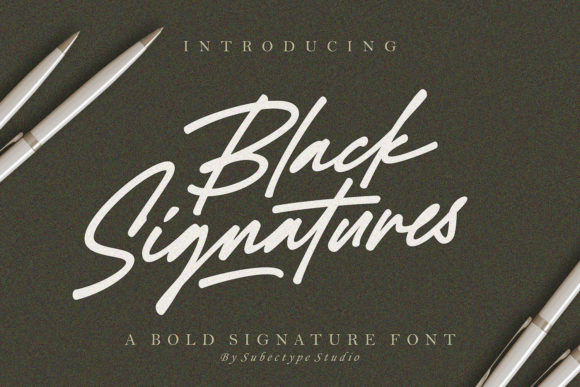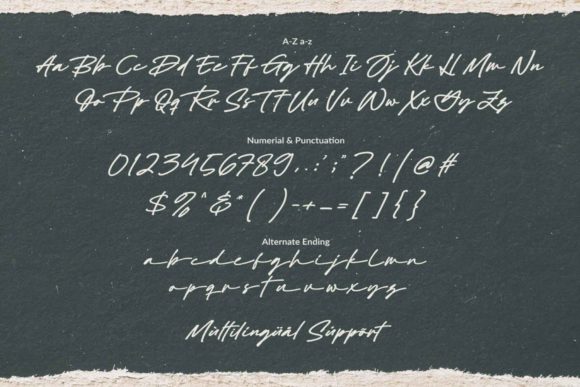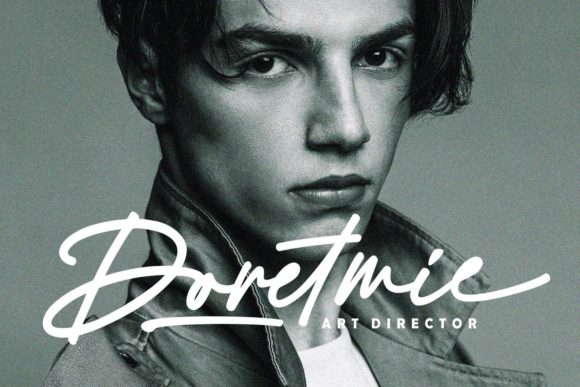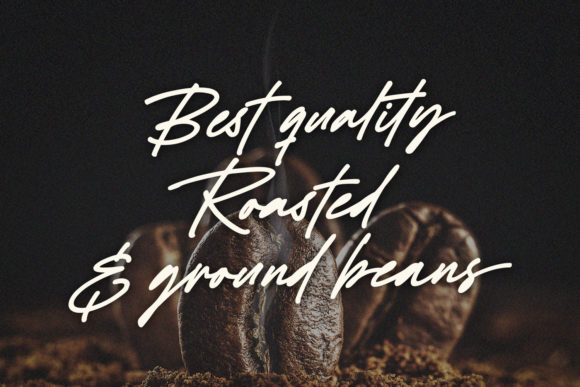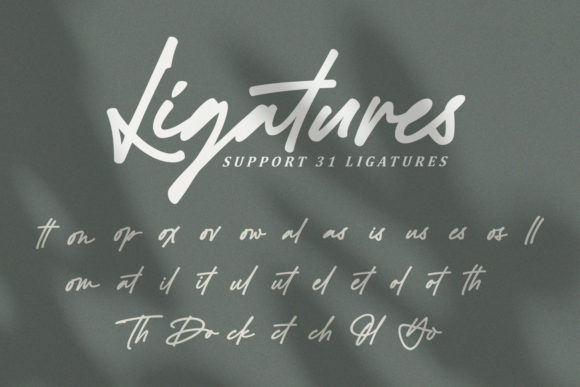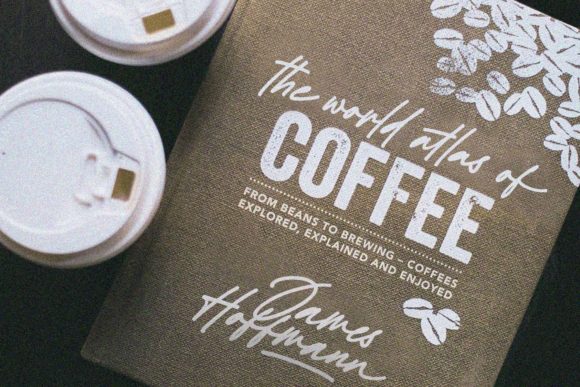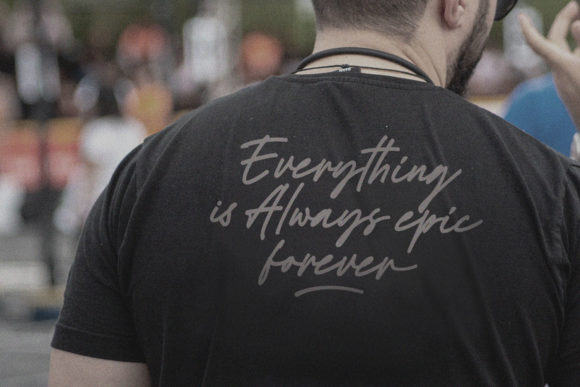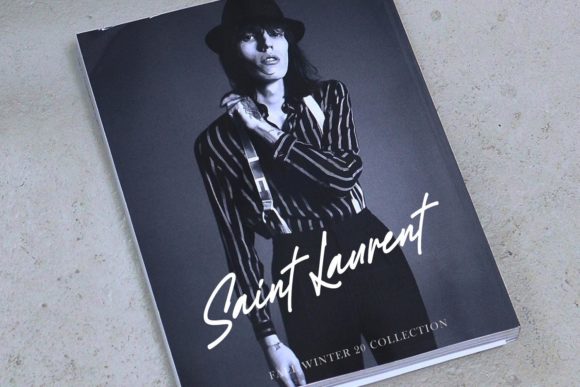
Black Signatures Font
About Black Signatures Font
Black Signatures is distinct and fashionable script font. Whatever the topic, this font will be a wonderful asset to your font library, as it has the potential to enhance any creation.